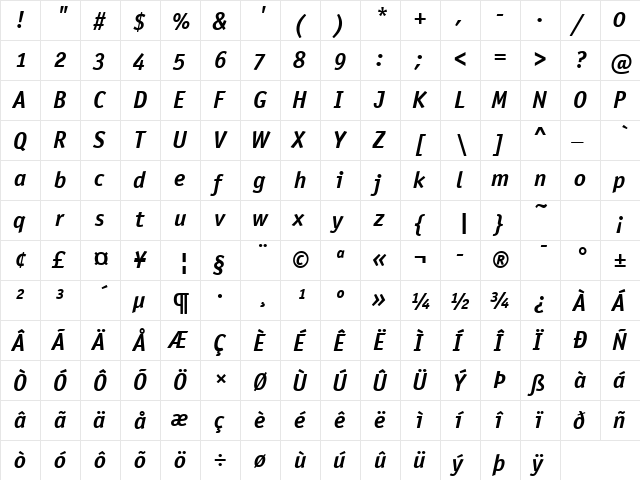
Officina Sans OS ITC TT BoldIta
Design Context for Officina Sans OS ITC TT Typeface
Officina Sans OS ITC TT offers clean, dependable letterforms without strong stylistic allegiance, making it a practical choice for designers who need flexibility. The heavy weight commands attention and anchors typographic hierarchies.